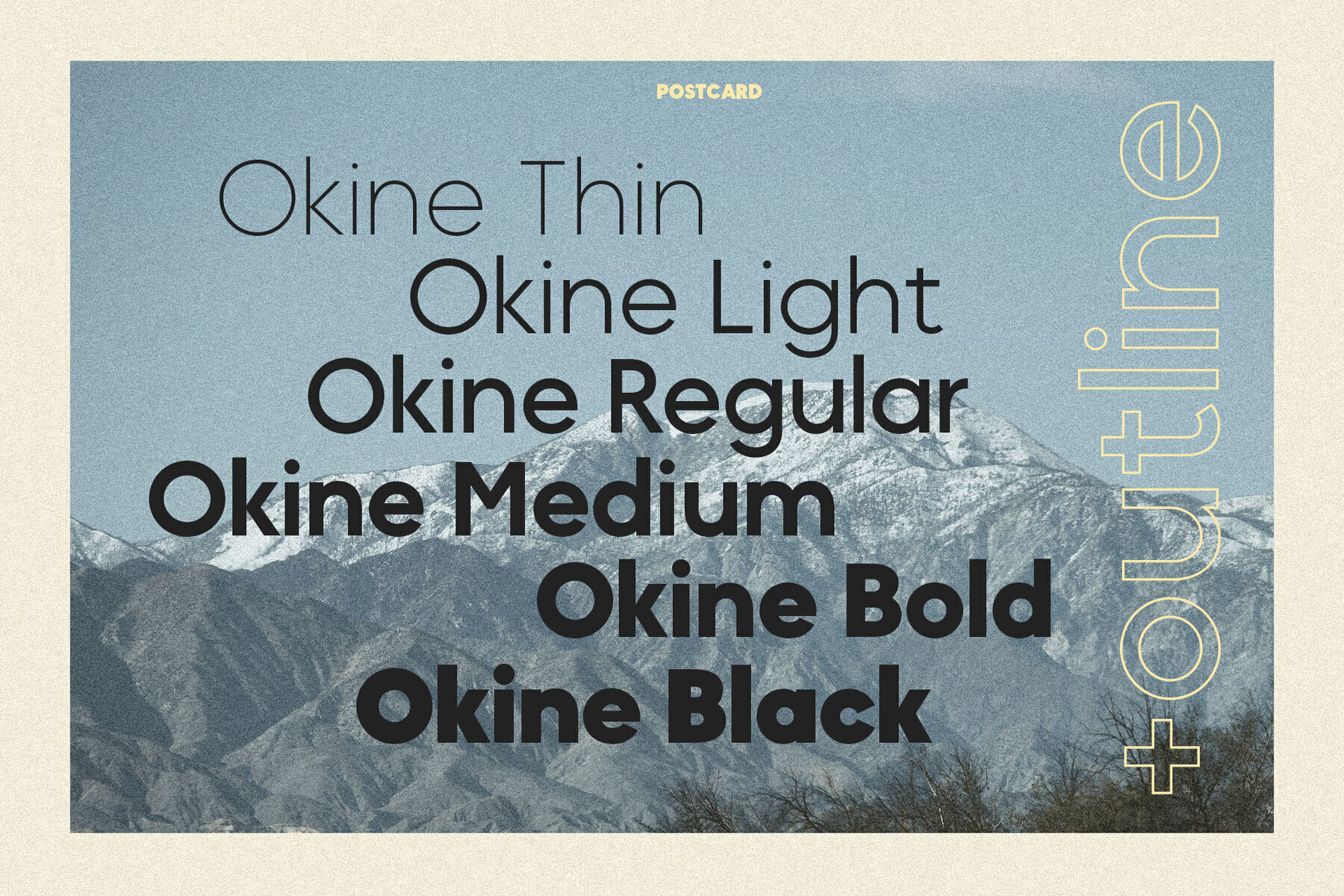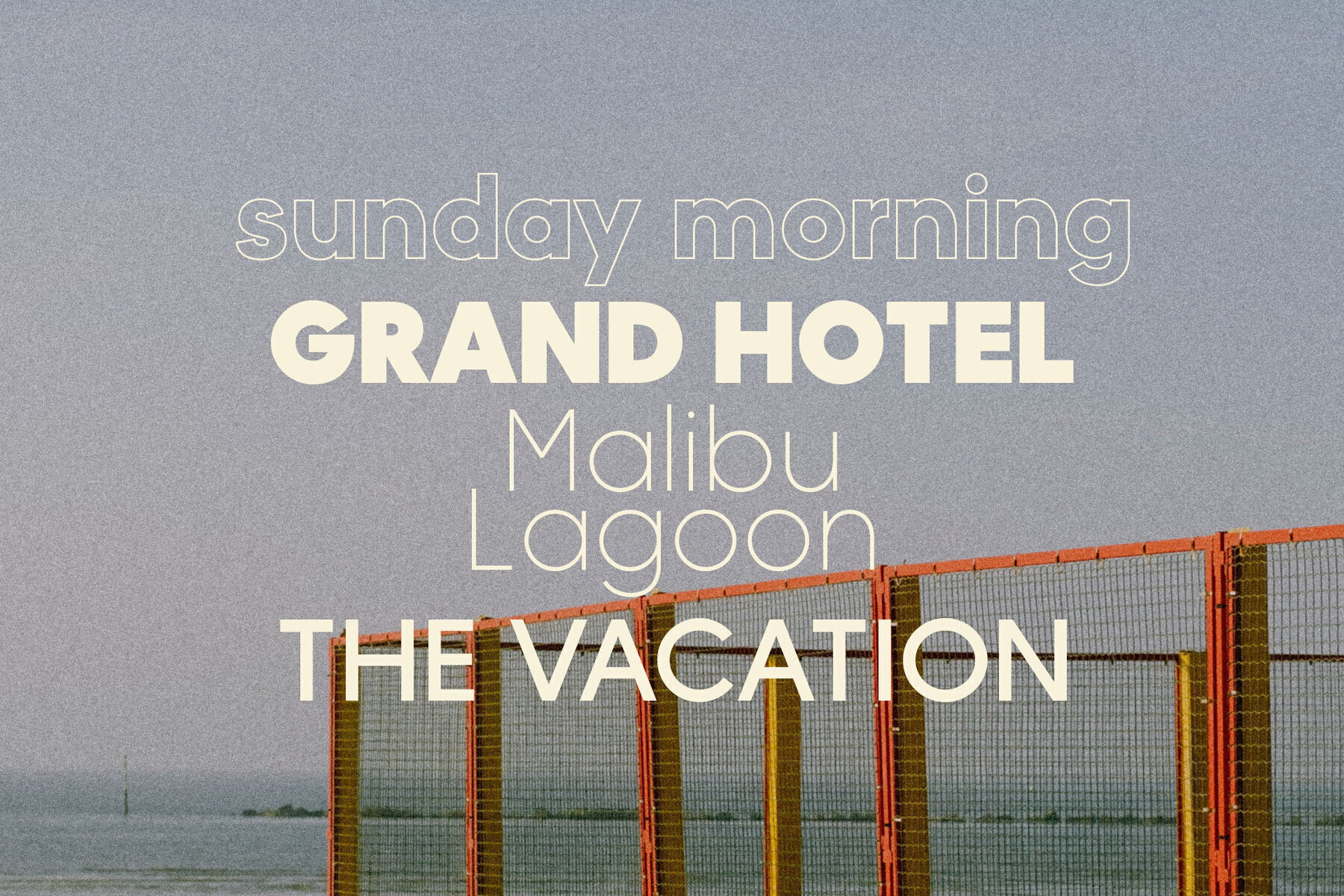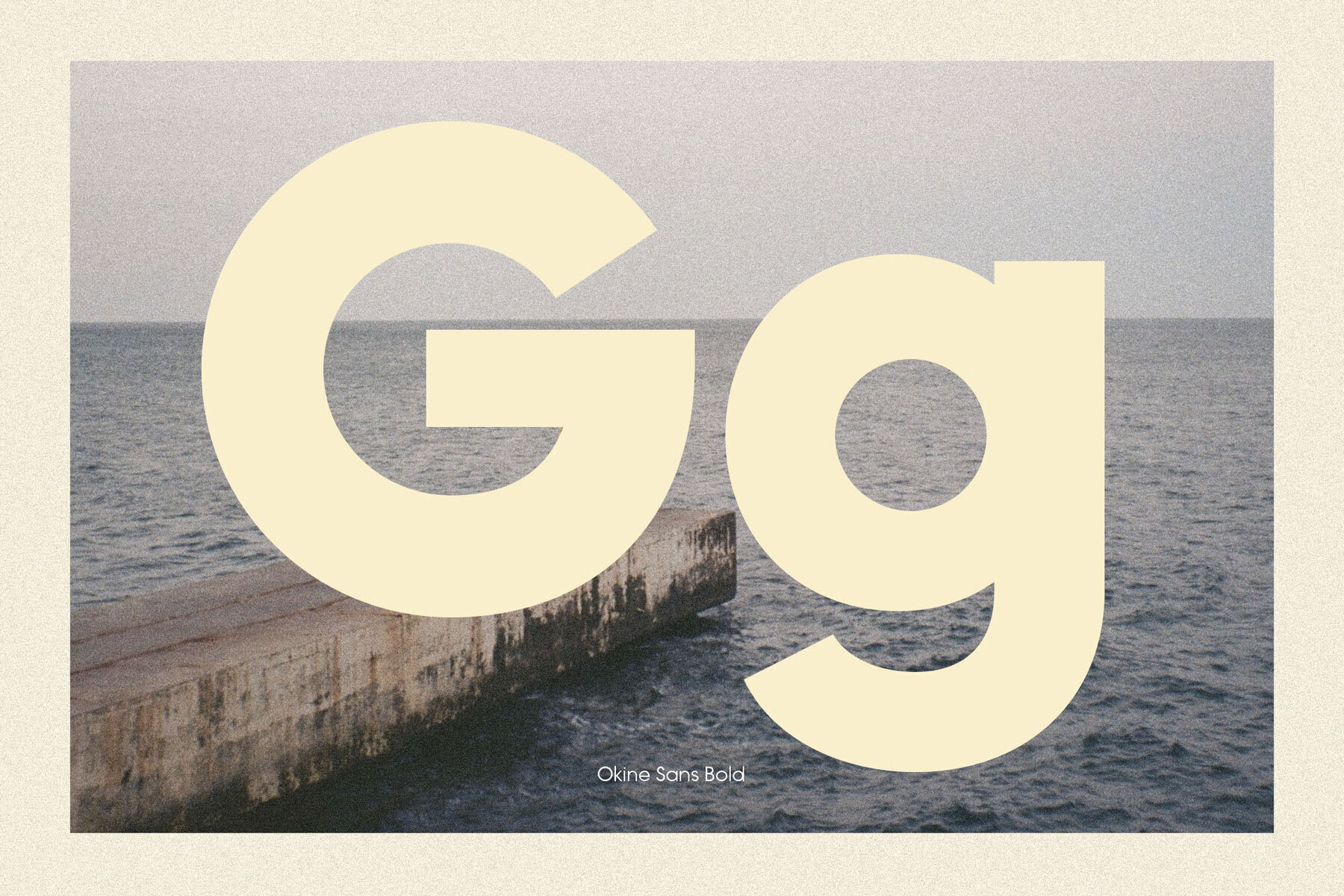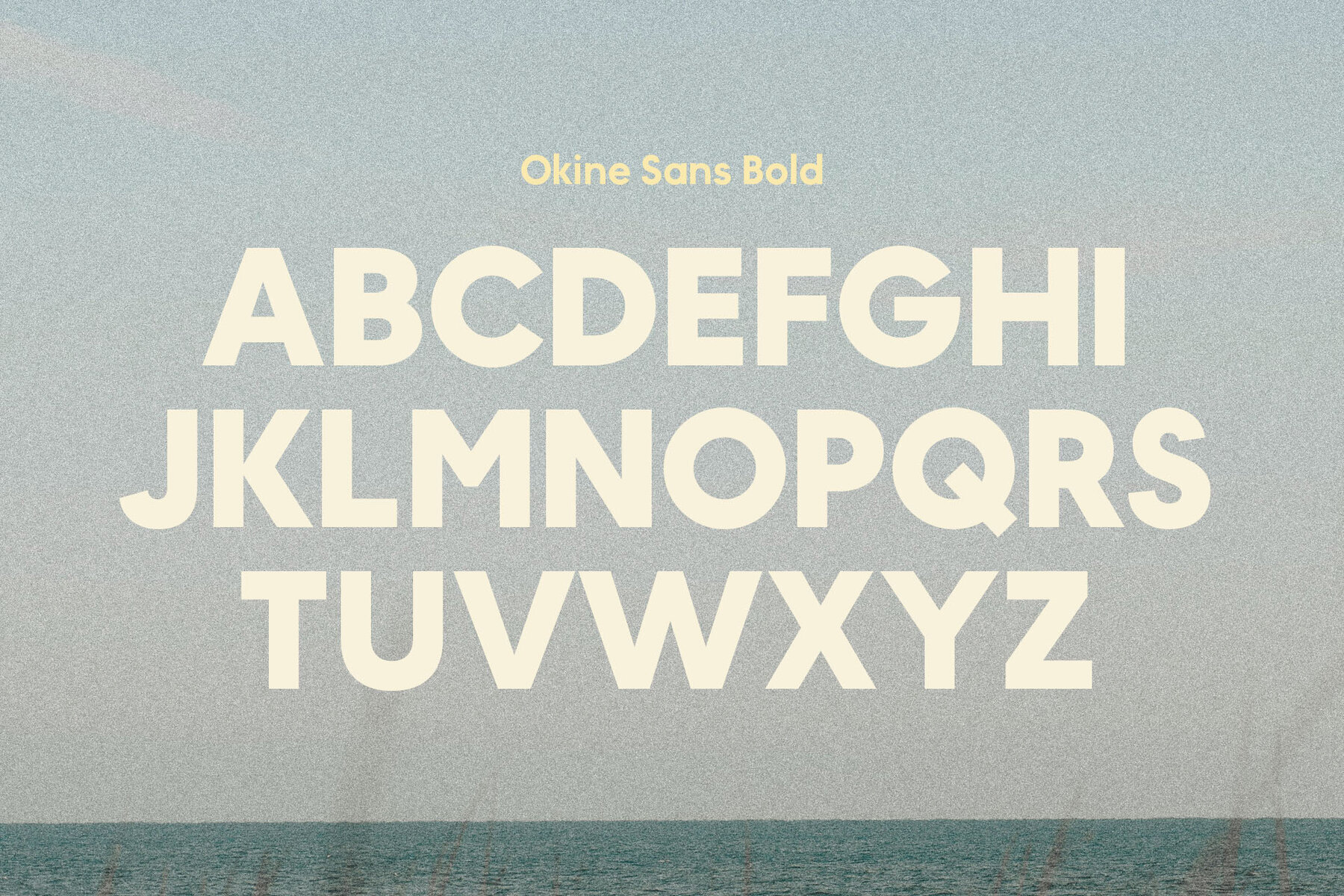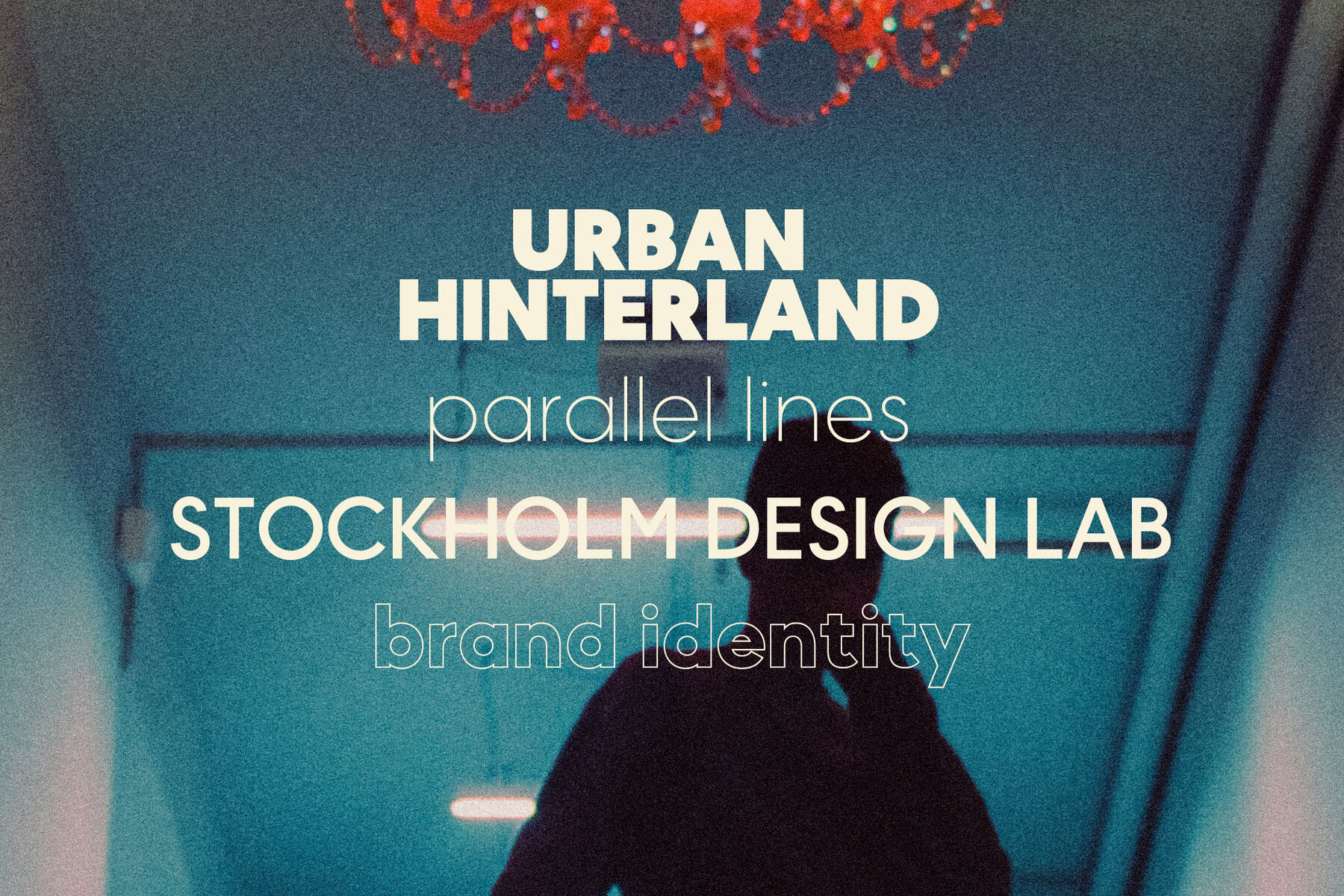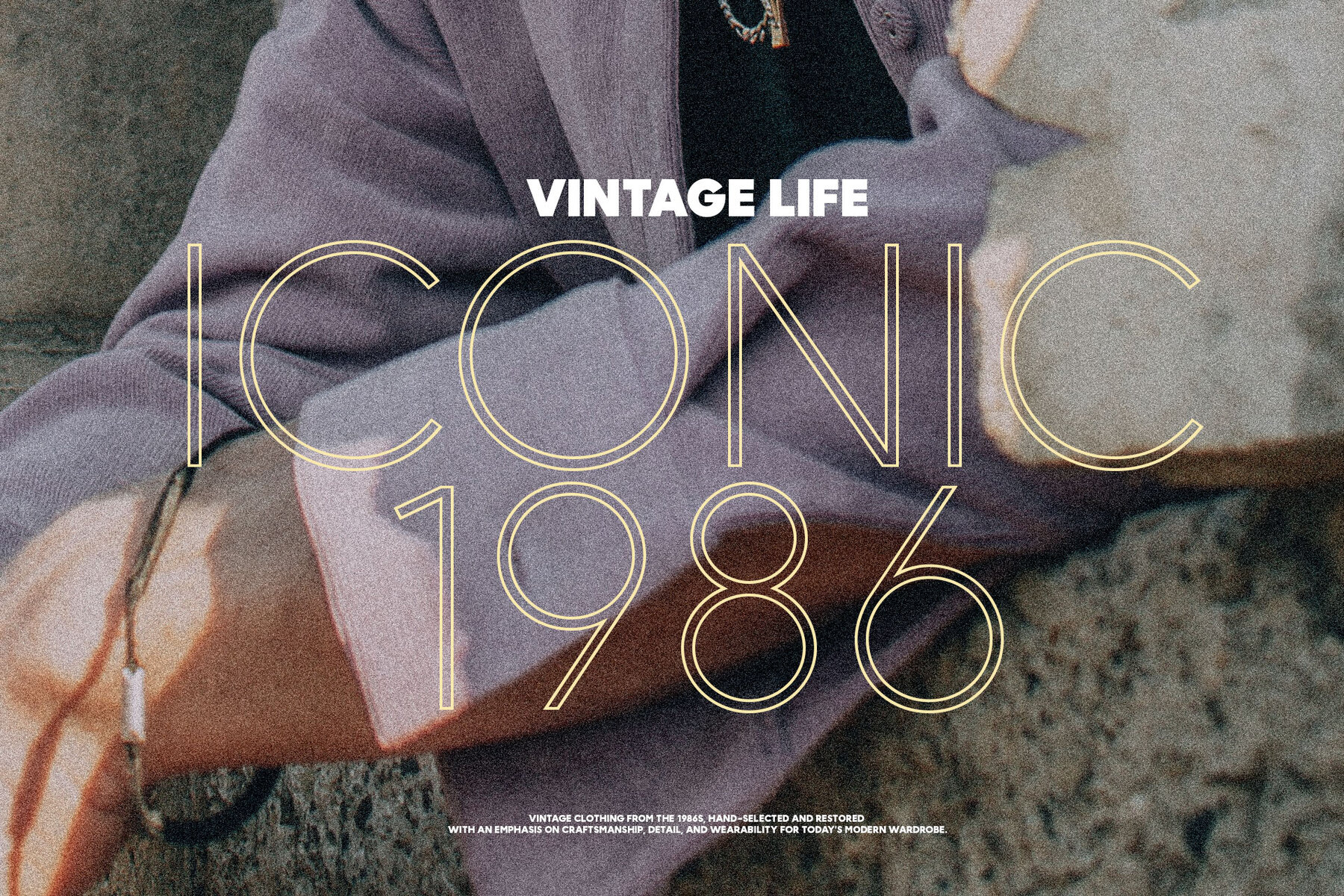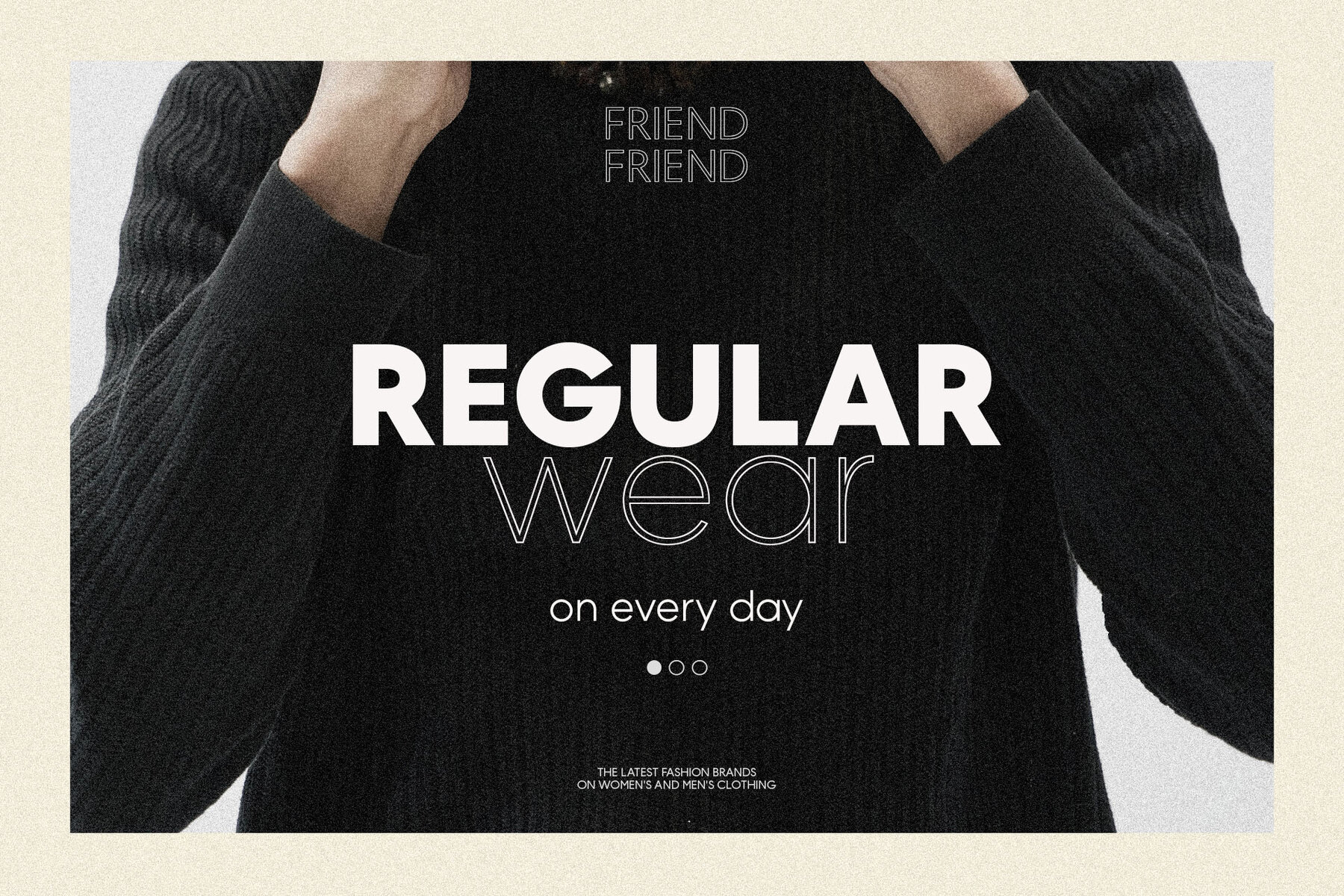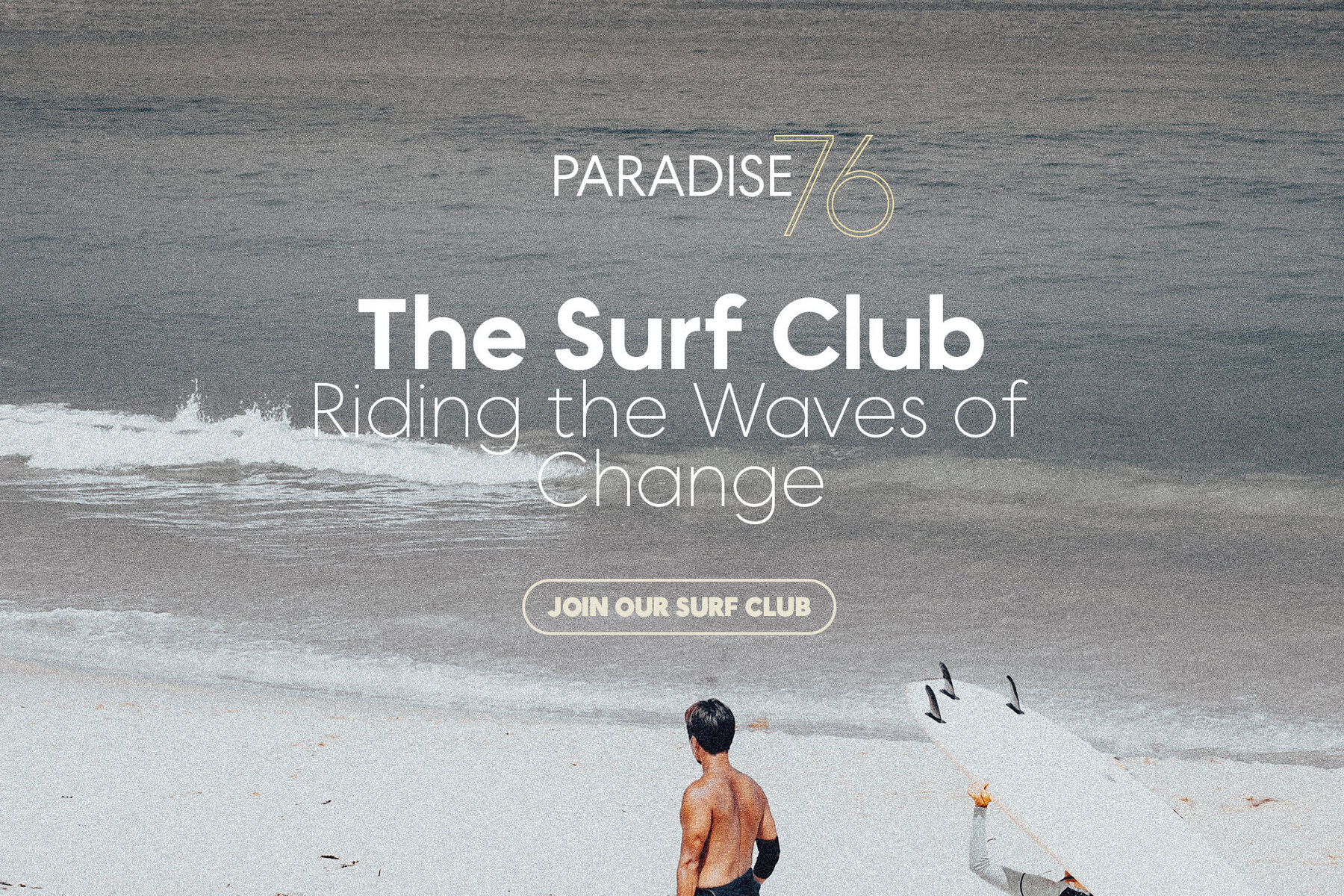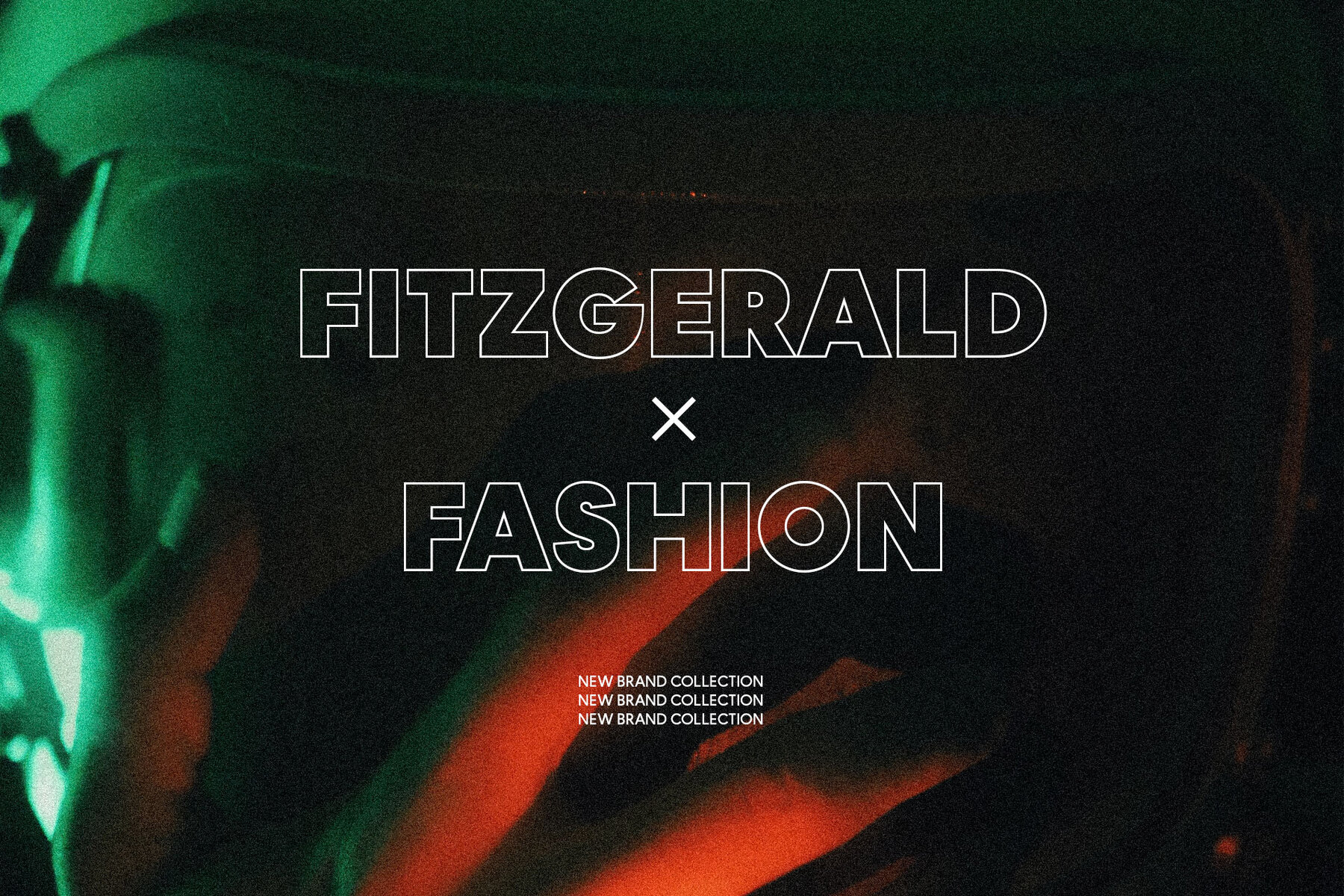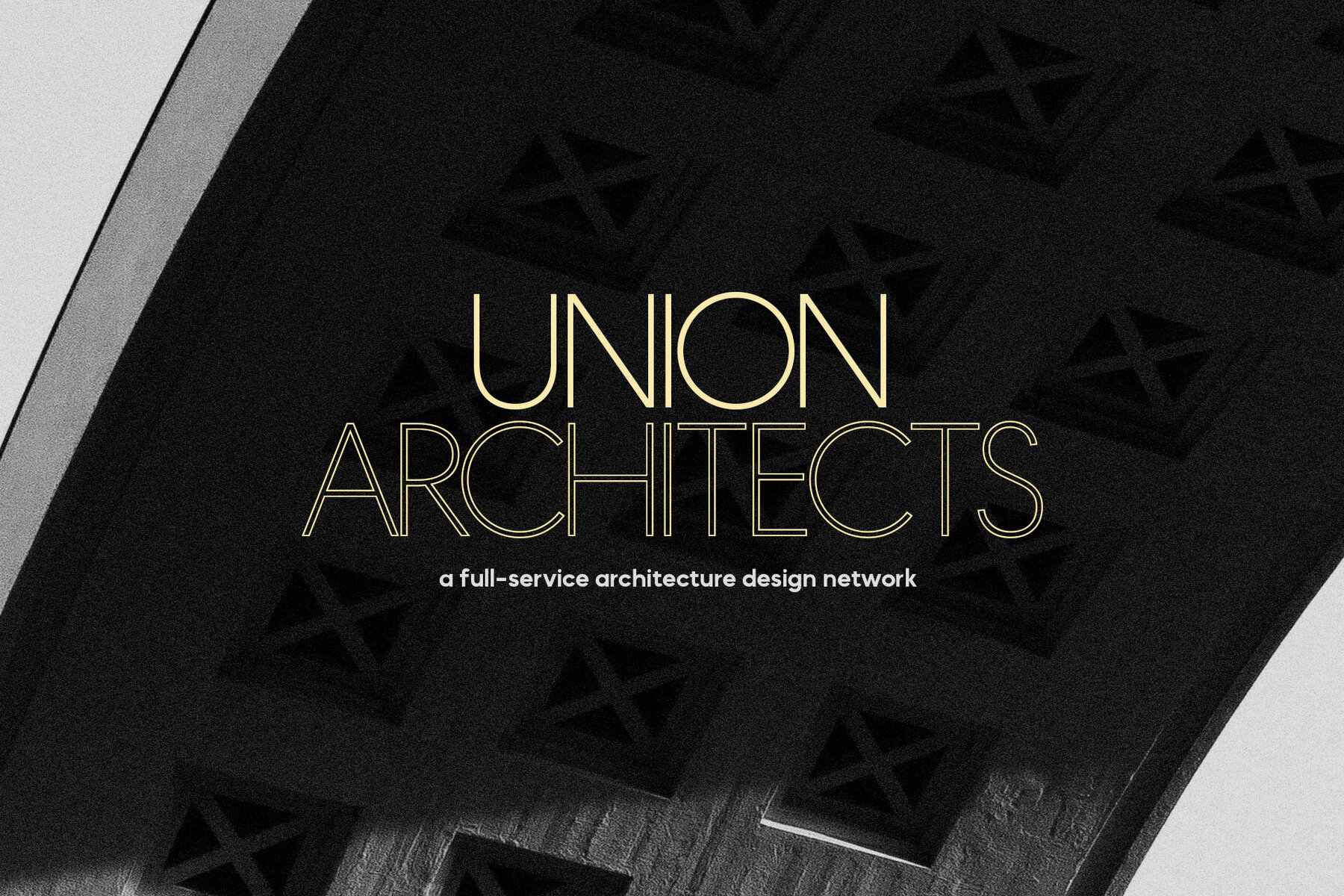
MADE Okine Sans Font
MADE Okine Sans stands out as a modern sans serif type family designed to meet the diverse demands of contemporary graphic design. Its clean lines and refined structure make it a perfect fit for brands looking to convey a sense of modernity and professionalism. Features:MADE Okine Sans: A Contemporary Sans Serif Typeface
If you're aiming to enhance your branding with a typeface that exudes clarity and sophistication, MADE Okine Sans is a worthwhile consideration.